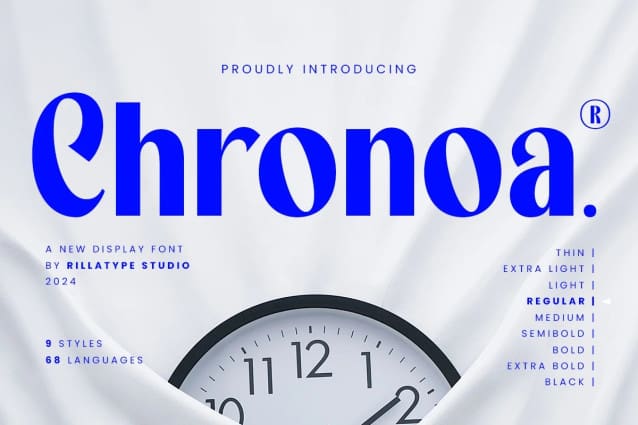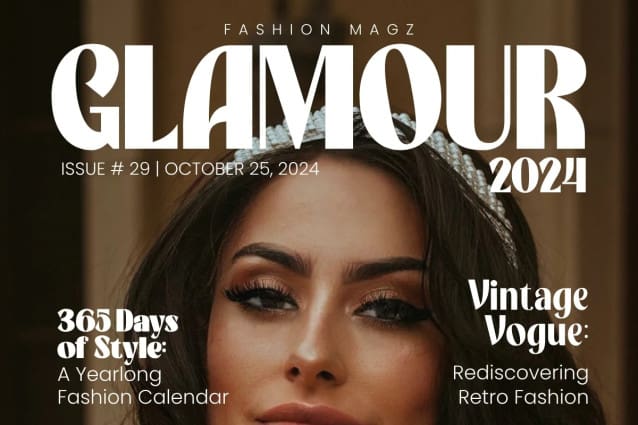
Chronoa Font Family
Chronoa Font Family – a versatile sans-serif typeface that seamlessly blends modern aesthetics with functionality. With its extensive range of styles, including Thin, Extra Light, Light, Regular, Medium, Semibold, Bold, Extra Bold, and Black, Chronoa provides a spectrum of options for creative expression.
Crafted with precision, each style of Chronoa is designed to deliver clarity and legibility across various design applications. The clean lines and balanced proportions make it an excellent choice for both digital and print projects. Whether you’re working on editorial design, branding, or web content, Chronoa’s diverse styles offer flexibility and visual harmony.
Experience seamless cohesion in your typography with Chronoa Font Family. Elevate your designs with a contemporary sans-serif that strikes the perfect balance between modernity and readability.